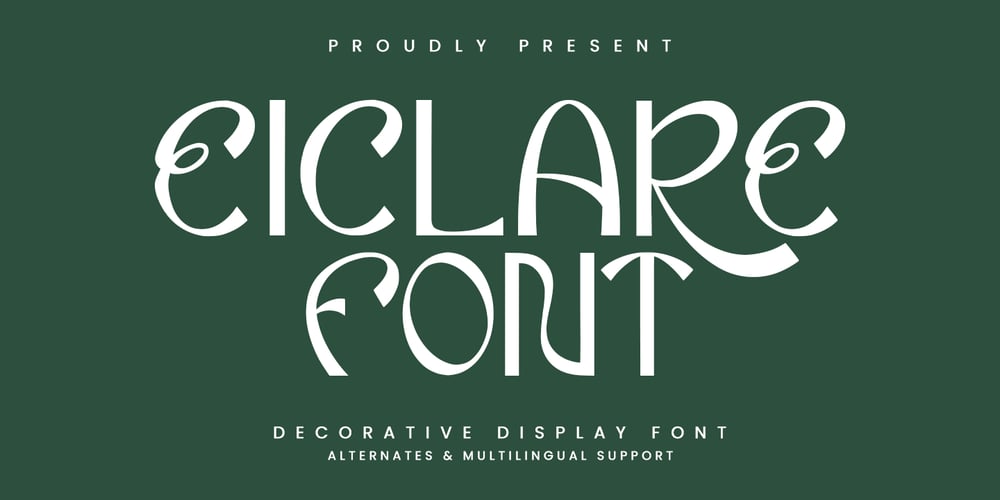
MC Eiclare Font Family was designed by Gilang Maulana and published by Maulana Creative. MC Eiclare contains 1 styles and family package options. Eiclare decorative display font. Heavy stroke, fun character with alternate. To give you an extra creative work. Eiclare decorative display font support multilingual language. This font is good for logo design, Social media, Movie Titles, Books Titles, a short text even a long text letter and good for your secondary text font with script or serif. Make a stunning work with Eiclare decorative display font. Cheers, Maulana Creative